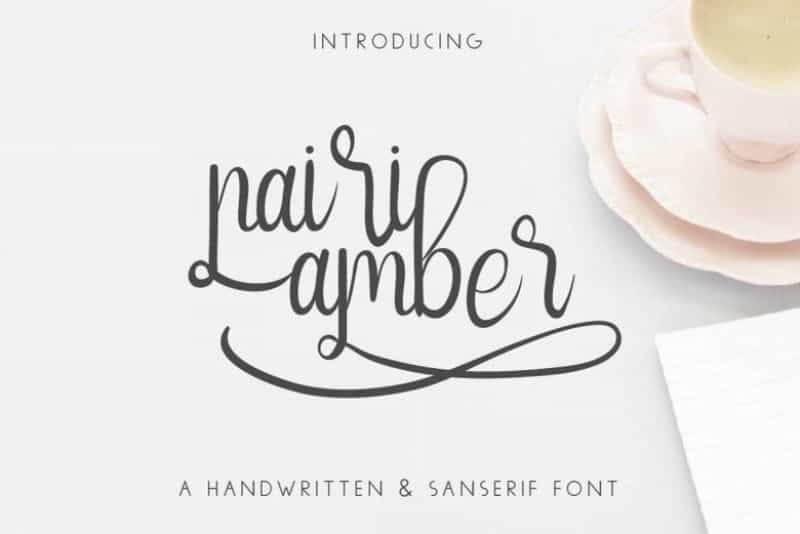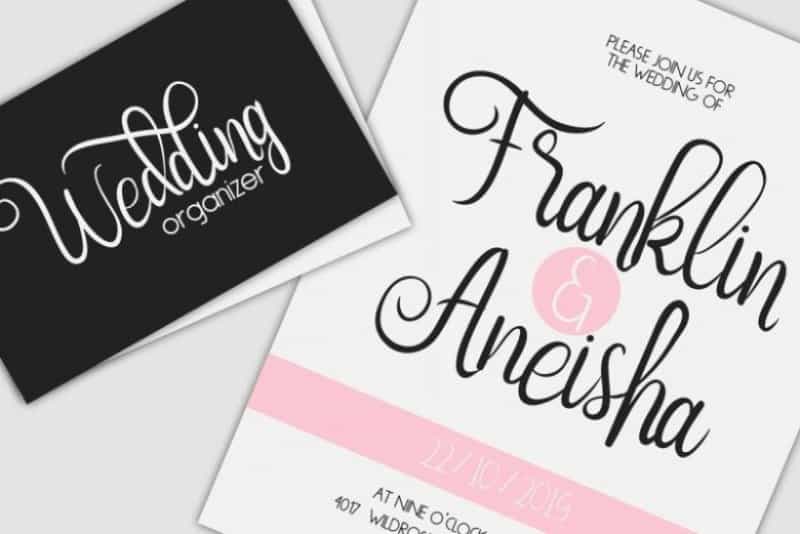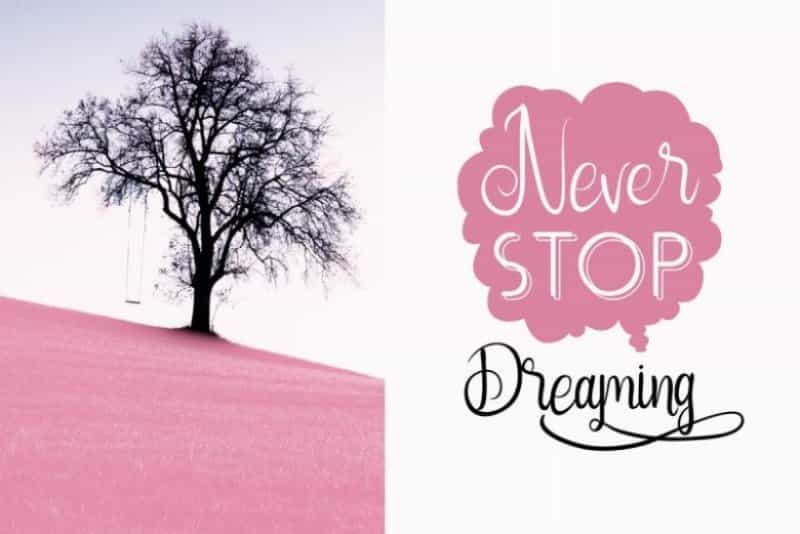
Whats up Everyone!Please meet our newest font : NairiAmber!This is a font duo that has a Sans serif and a fancy script. The type of font is modern script handwriting style font which is feminine.